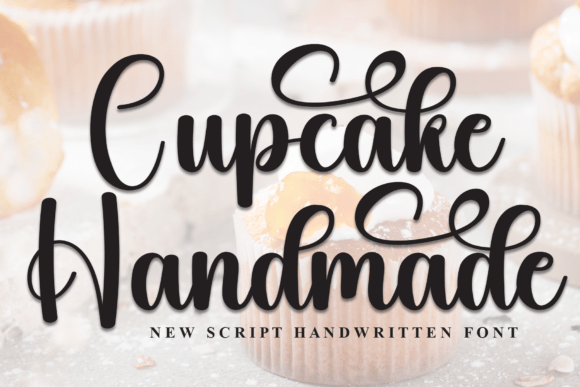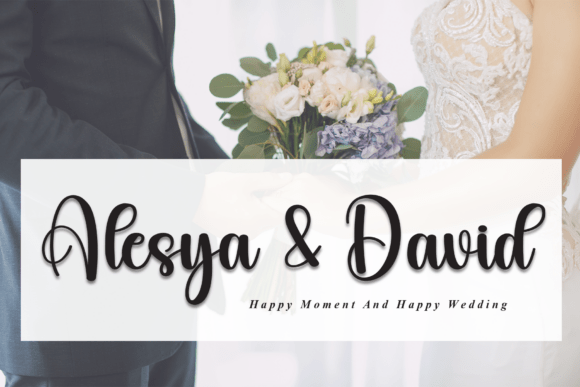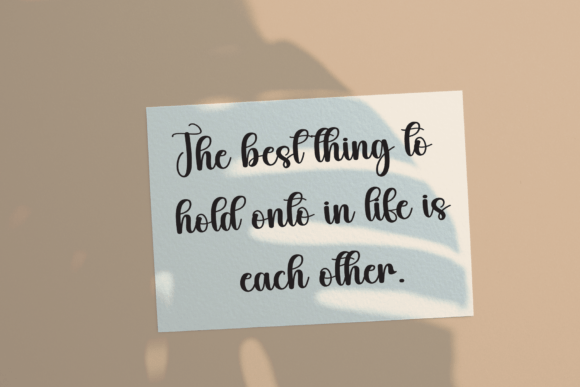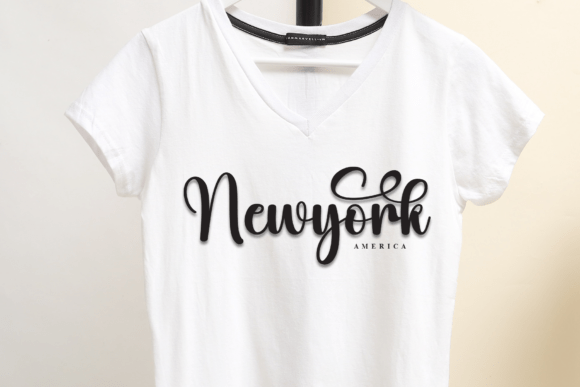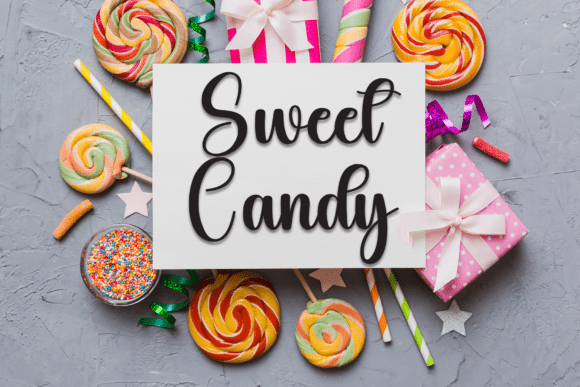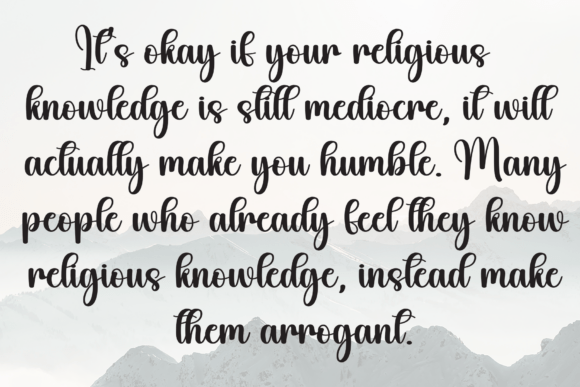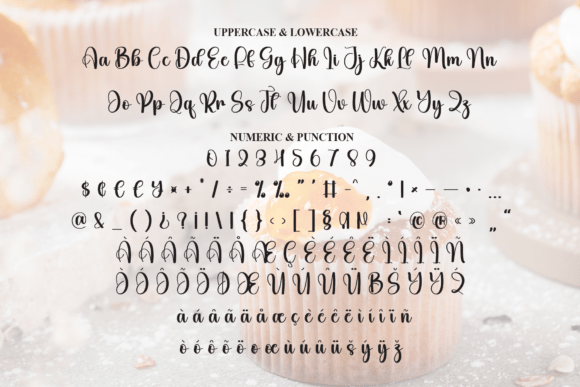
The Perfect Touch of Whimsy: Unveiling the Cupcake Handmade Font
Have you ever been stuck on a design project, searching for that elusive spark that sets it apart? For me, it’s often the perfect font that makes the difference. And that’s exactly what I found when I discovered the Cupcake Handmade Font – a stylish handwritten script font that adds a touch of elegance and sophistication to any project.
This beautiful typeface is designed to bring warmth and refinement to your work, making it perfect for branding, invitations, and social media designs. Its flowing strokes and organic curves give it an effortless charm that’s sure to captivate your audience. As a designer, you’ll appreciate the Cupcake Handmade Font’s versatility and ability to add a personal touch to any project, making it a valuable addition to your design toolkit.
Cupcake Handmade Font Key Features
- Font Size: 3,000 characters, including uppercase and lowercase letters, numbers, punctuation, and special characters
- Unique Characteristics: Handmade, cursive, and whimsical design with a touch of imperfection
- Font Style: Script, cursive, and handwritten
Cupcake Handmade Font Review
Overall, I think the Cupcake Handmade Font is a charming addition to any design project. It’s perfect for baking-related themes, food blogs, or even wedding invitations.
- ✨ The font has a unique, hand-drawn feel that adds a touch of whimsy to your designs.
- ✨ It’s highly customizable, allowing you to adjust the weight, size, and style to suit your needs.
- ✨ The font includes a wide range of characters, including punctuation and symbols.
- ⚠️ The font may not be suitable for large blocks of text, as it can be difficult to read at smaller sizes.
- ⚠️ Some characters may not render correctly in certain operating systems or browsers.
Overall, I’d say the Cupcake Handmade Font is a great choice for designers looking to add a playful touch to their projects. While it may have some limitations, its unique charm and high customizability make it a valuable addition to any design library.
Tips for Getting the Most Out of the Cupcake Handmade Font
Use the Cupcake Handmade Font to add a touch of whimsy and personality to your designs. Pair it with bold colors and playful graphics for a cohesive look. Experiment with different font sizes and styles to create visual interest.
The Cupcake Handmade Font is perfect for:
- Food and
Alternatives to Cupcake Handmade Font
Great Vibes is a beautiful, handwritten font perfect for creating a playful and whimsical atmosphere. It’s ideal for designing wedding invitations, greeting cards, and social media graphics. Great Vibes has a more elegant and refined feel compared to Cupcake Handmade Font, making it suitable for a wider range of designs.
Comparison: While Cupcake Handmade Font is more rustic and imperfect, Great Vibes has a smoother and more polished look. Great Vibes is also more versatile and can be used in a variety of design contexts, whereas Cupcake Handmade Font is more suited for rustic or vintage-themed designs.
Alex Brush is a elegant and sophisticated font that’s perfect for creating a high-end and luxurious atmosphere. It’s ideal for designing wedding invitations, branding materials, and marketing collateral. Alex Brush has a more refined and elegant feel compared to Cupcake Handmade Font, making it suitable for upscale designs.
Comparison: While Cupcake Handmade Font is more playful and whimsical, Alex Brush is more formal and sophisticated. Alex Brush is also more suitable for large-scale designs, whereas Cupcake Handmade Font is more suited for smaller designs or social media graphics.
Carolyna Pro is a beautiful, modern font that’s perfect for creating a sophisticated and elegant atmosphere. It’s ideal for designing branding materials, marketing collateral, and social media graphics. Carolyna Pro has a more polished and refined feel compared to Cupcake Handmade Font, making it suitable for a wide range of designs.
Comparison: While Cupcake Handmade Font is more rustic and imperfect, Carolyna Pro has a smoother and more modern look. Carolyna Pro is also more versatile and can be